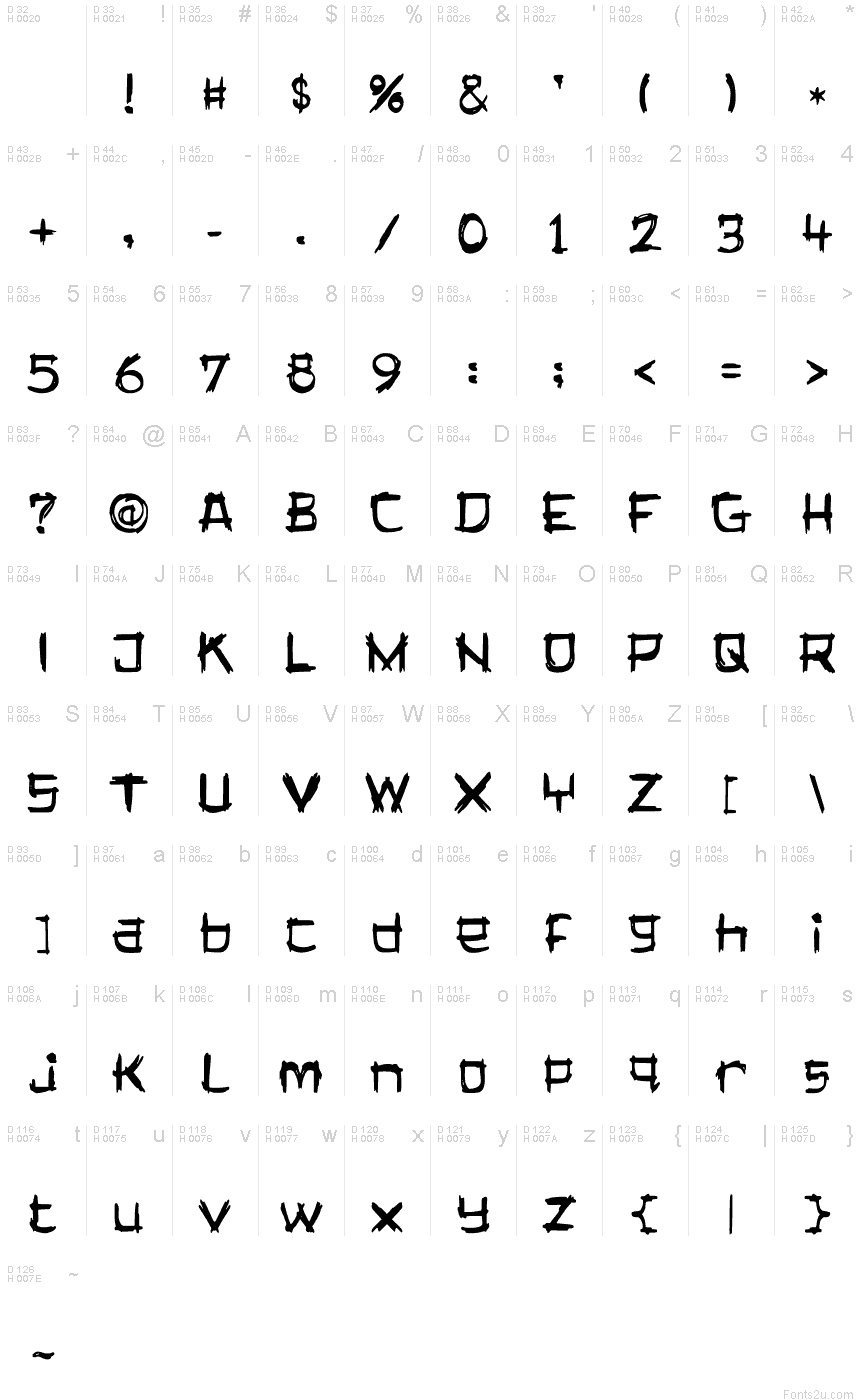
LagosTraffic
The font 'Lagos Traffic' was inspired by a personal experience I had someday navigating the city...shiii #smh...anyways;Thanks on having interest on this piece.